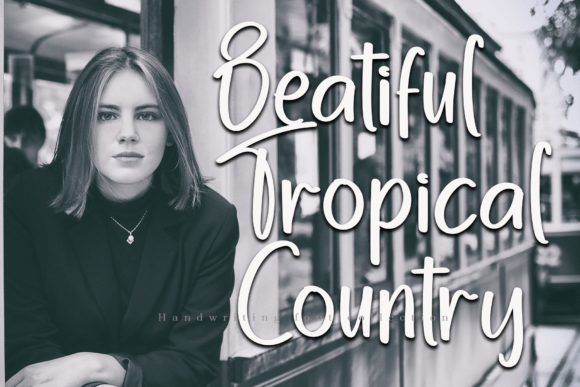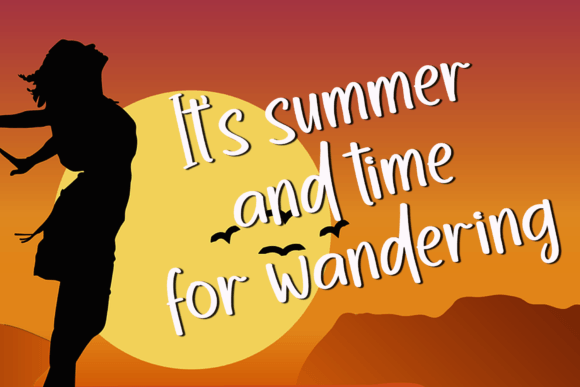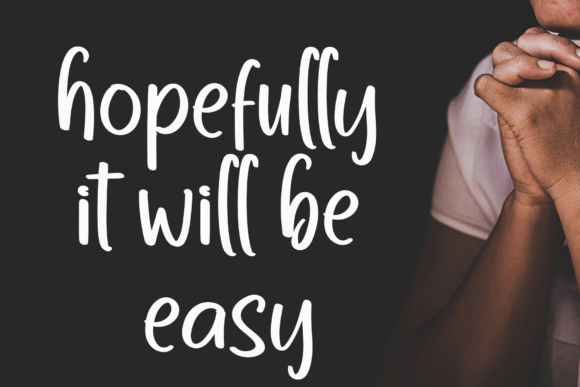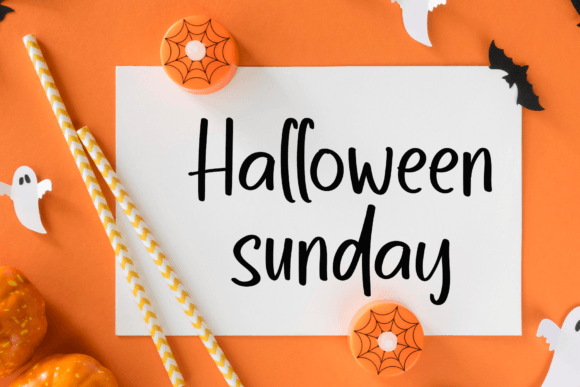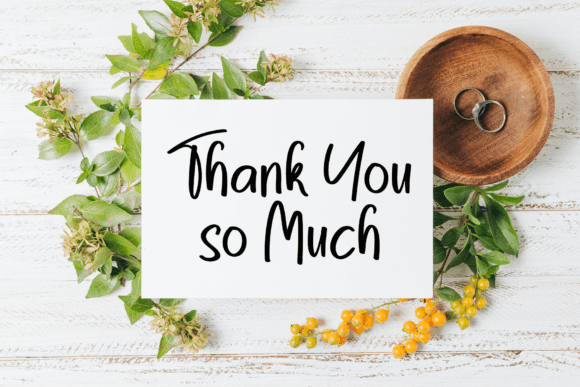
Bible Font: Adding a Touch of Romance to Your Designs
The Bible font is a beautiful, enchanting handwritten font that has captured the hearts of designers and crafters alike. With its versatile nature, this font can be used in a wide range of applications, from greeting cards to headlines, and is guaranteed to add a romantic feel to your next project.
What is Bible Font?
Bible font is a type of handwritten font that is characterized by its elegant and cursive strokes. It is a digital representation of traditional handwritten script, making it perfect for designs that require a personal touch. The font is highly legible, making it suitable for use in various design projects, including invitations, announcements, and more.
Features of Bible Font
- Handwritten style: The Bible font has a unique, handwritten style that adds a touch of warmth and personality to your designs.
- Versatile: This font can be used in a variety of design projects, from greeting cards to headlines, and even social media graphics.
- Romantic feel: The Bible font has a romantic and elegant feel to it, making it perfect for designs that require a touch of sophistication.
- Highly legible: The font is highly legible, making it easy to read and understand, even at small sizes.
Uses of Bible Font
The Bible font can be used in a wide range of design projects, including:
- Greeting cards: Add a personal touch to your greeting cards with the Bible font, making them perfect for special occasions like weddings, anniversaries, and birthdays.
- Headlines: Use the Bible font to create eye-catching headlines for your blog posts, articles, or social media graphics.
- Invitations: Create beautiful and elegant invitations for special occasions like weddings, baby showers, and graduations.
- Signs and banners: Use the Bible font to create eye-catching signs and banners for events, sales, or promotions.
Tips for Using Bible Font
Here are some tips for using the Bible font in your designs:
- Pair with other fonts: Pair the Bible font with other fonts to create a unique and visually appealing design.
- Use in moderation: Use the Bible font in moderation to avoid overwhelming your design.
- Experiment with colors: Experiment with different colors to find the perfect combination that matches your brand or design.
The Bible font is a beautiful and versatile font that can add a touch of romance and elegance to your designs. With its handwritten style, high legibility, and wide range of applications, this font is perfect for designers and crafters looking to create unique and visually appealing designs. Whether you’re creating greeting cards, headlines, or invitations, the Bible font is sure to make your designs stand out.